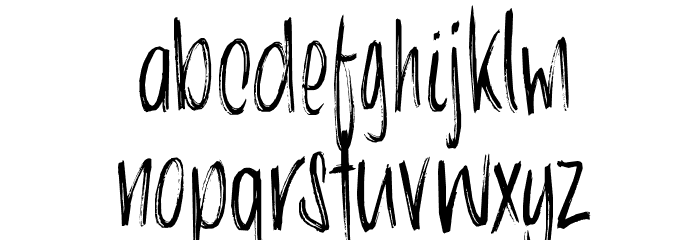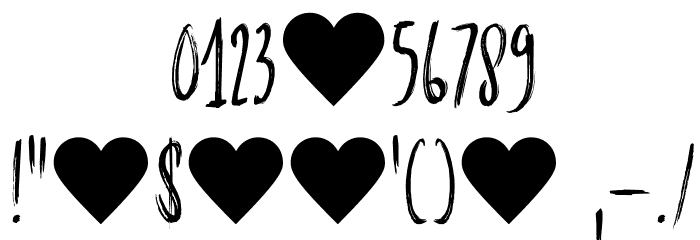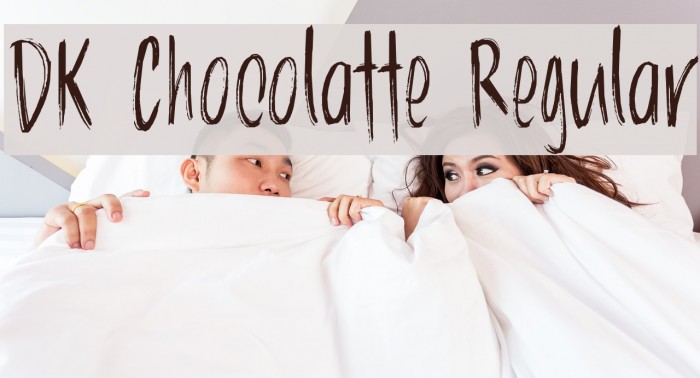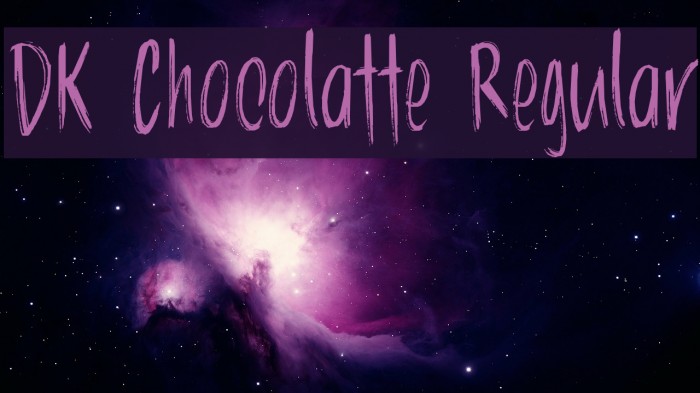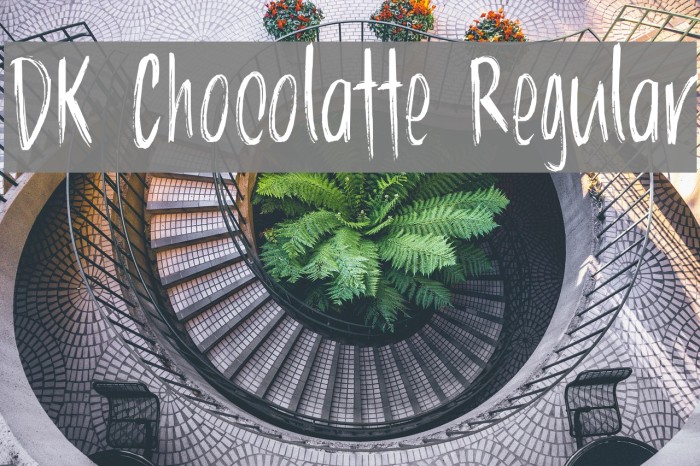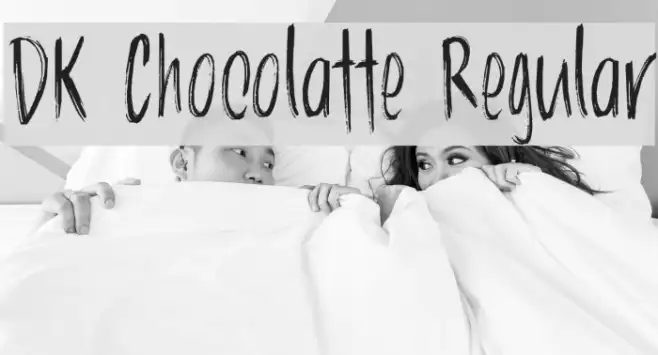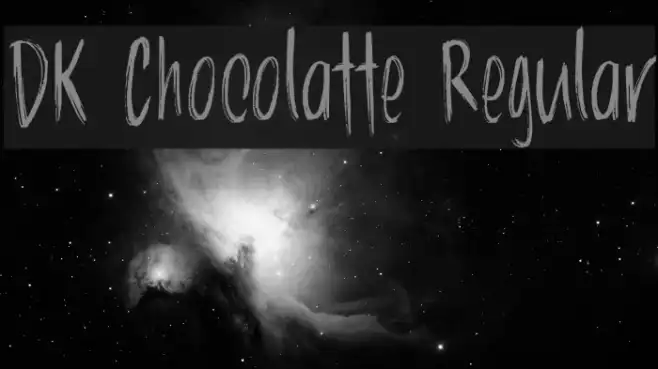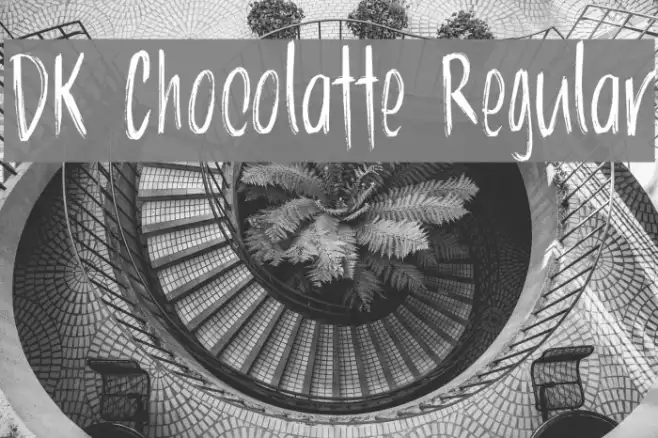
DK Chocolatte Regular Font
This font features a playful and artistic brushstroke style, giving it a hand-painted appearance. The letters are uneven and dynamic, with varying thicknesses that add a sense of movement and energy. The uppercase and lowercase characters maintain a consistent style, while the numbers and special characters complement the overall aesthetic. The font's unique texture and informal vibe make it stand out, perfect for creative and expressive design projects.
A playful, brushstroke-style font with an artistic, hand-painted look.
- Proposed Projects: Ideal for posters, greeting cards, artistic branding, and creative social media graphics.